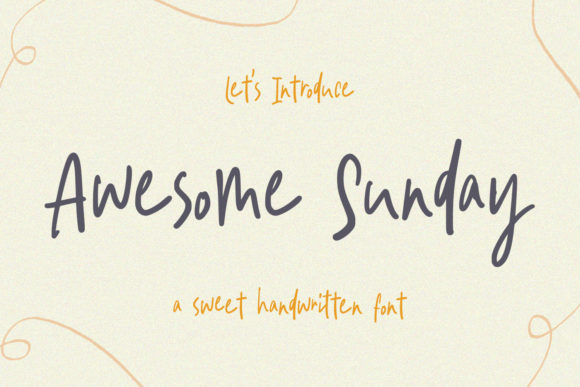
About Awesome Sunday Font
Awesome Sunday is a lovely and delicate script font that exudes cuteness. This font was particularly crafted for those who need a beautiful and refreshing look to their designs. Awesome Sunday is PUA encoded which means you can access all of the glyphs and swashes with ease!